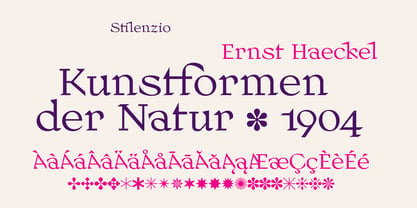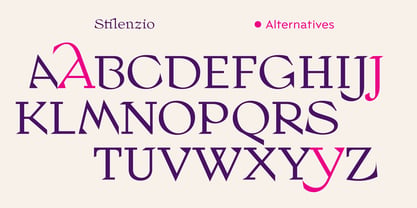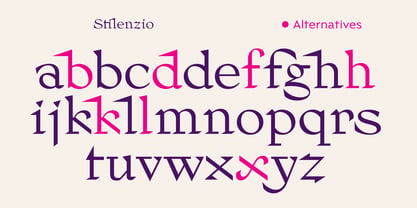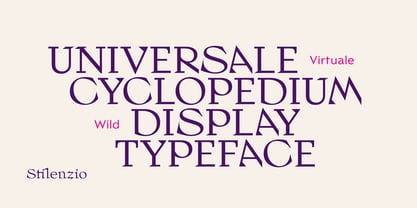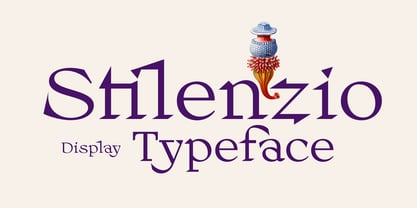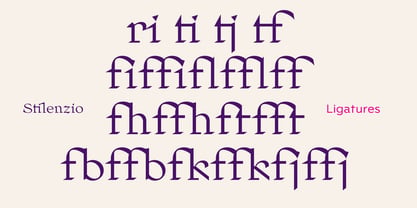
Stilenzio Roman
by Letterhead Studio-VG
The Stilenzio Roman Font Family was designed by Valery Golyzhenkov and published by Letterhead Studio-VG. Stilenzio Roman contains 1 styles. More about this family
Stilenzio is the deepest-sea and most beautiful serif font with hooks and spikes. It sticks into the memory, hurts the eye, digs into the screen – it's impossible to tear yourself away. Stilenzio – everything is strange. The glyph table contains alternative forms for a number of glyphs, ligatures, old-style numbers, and dingbats. Suitable for noticeable typography.
Designers: Valery Golyzhenkov
Foundry: Letterhead Studio-VG